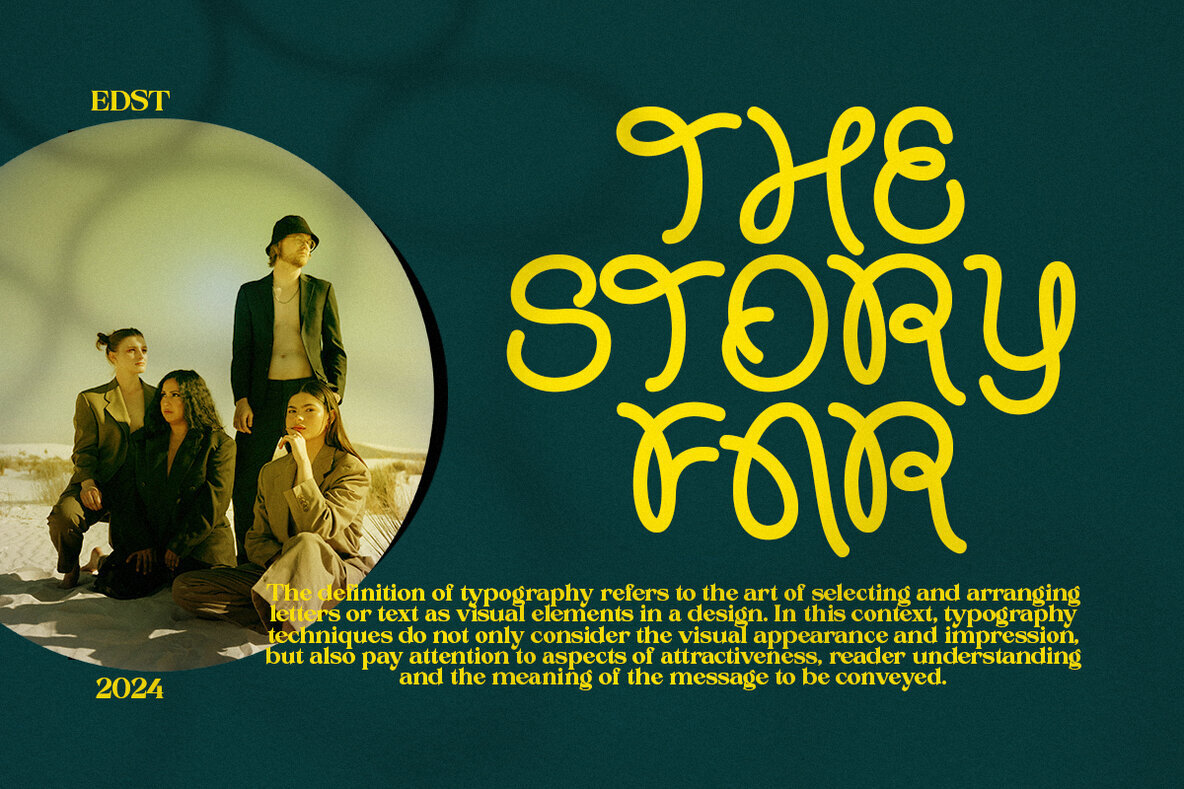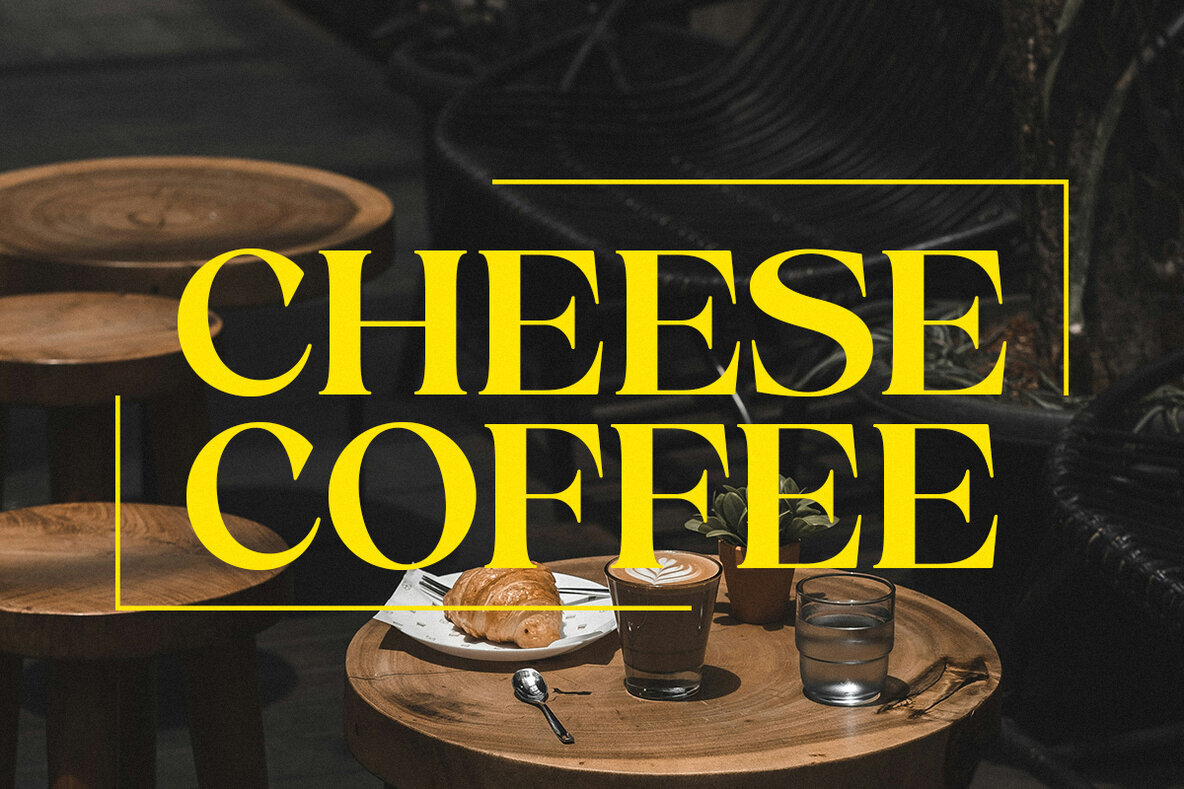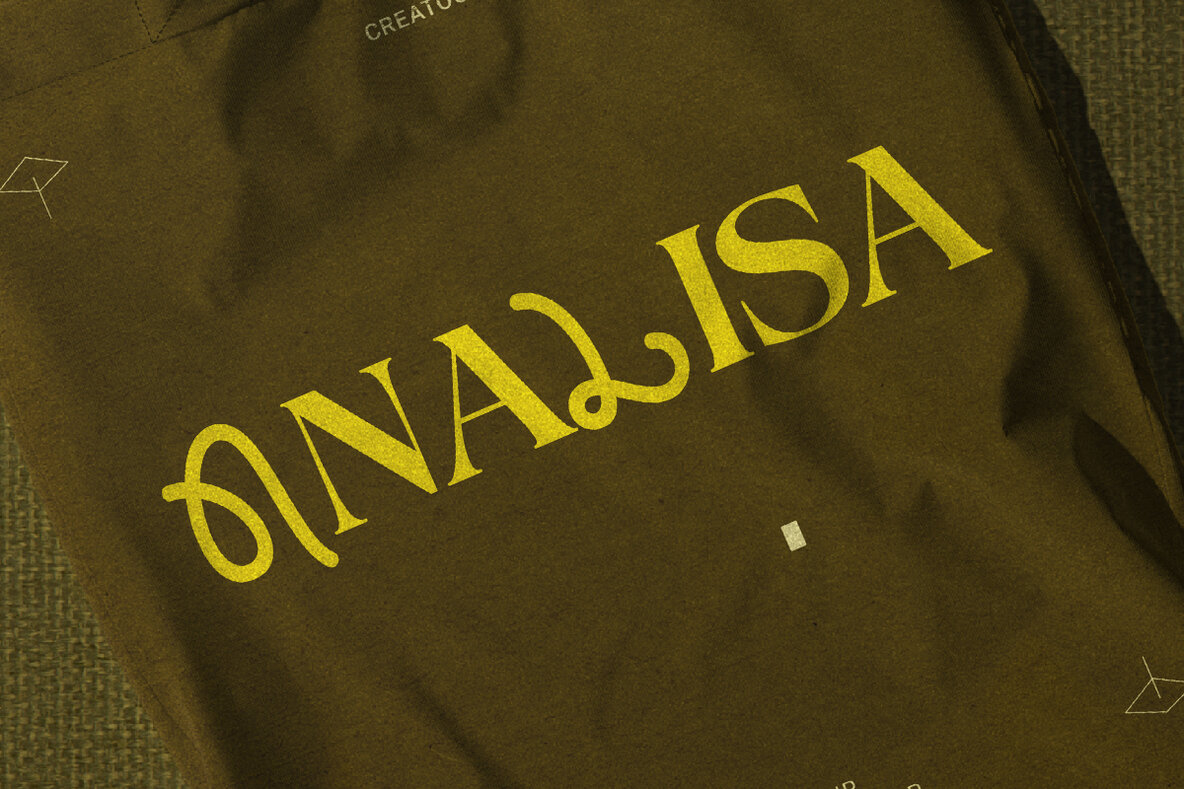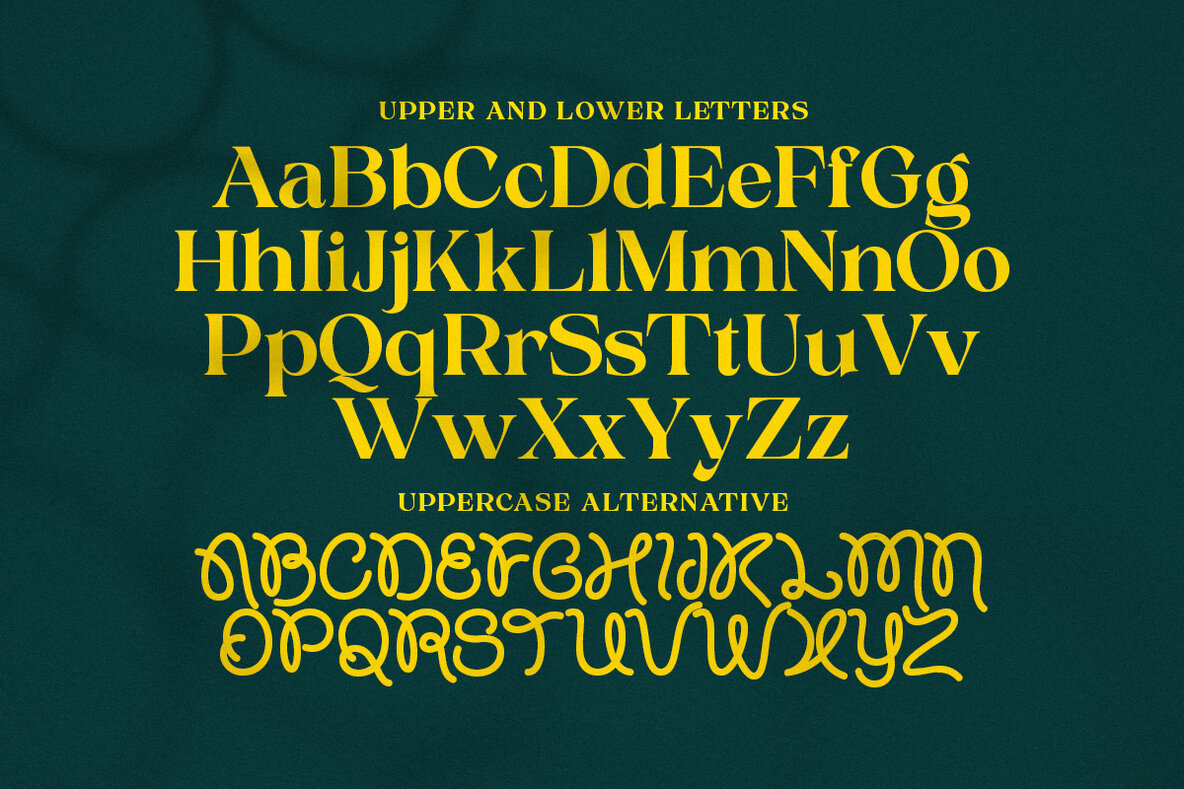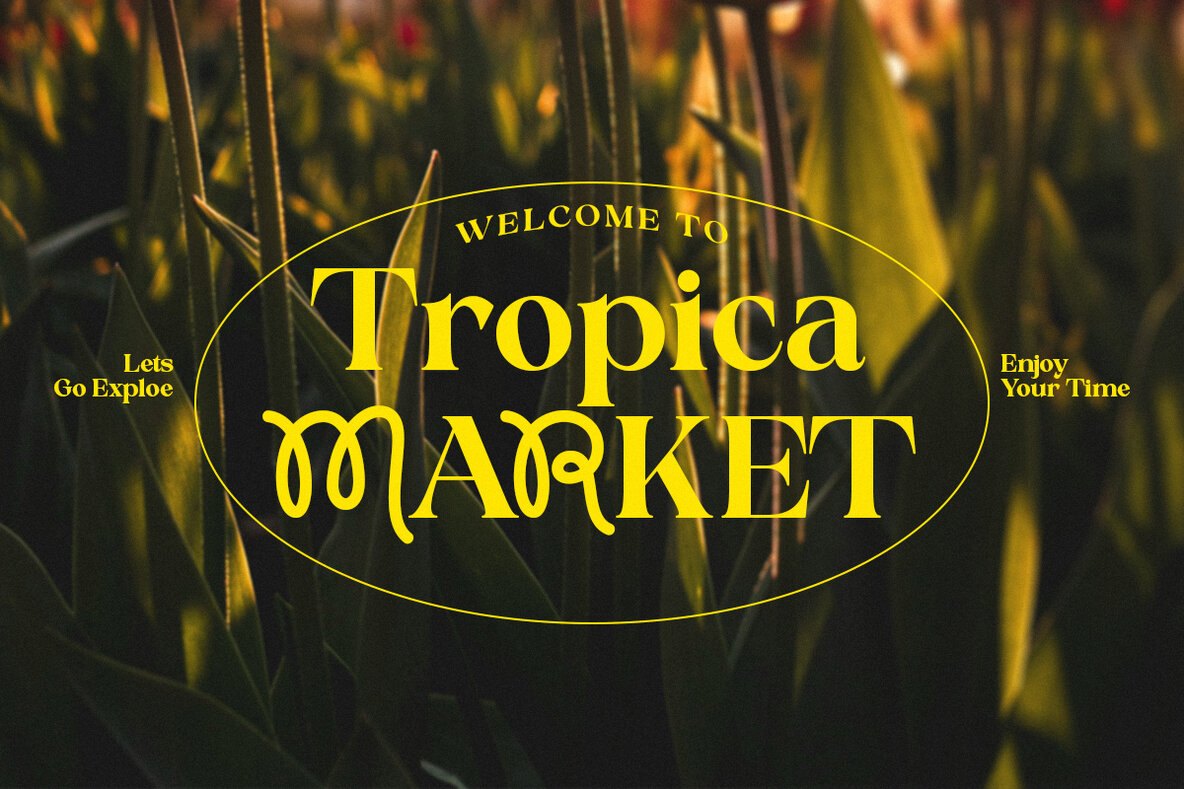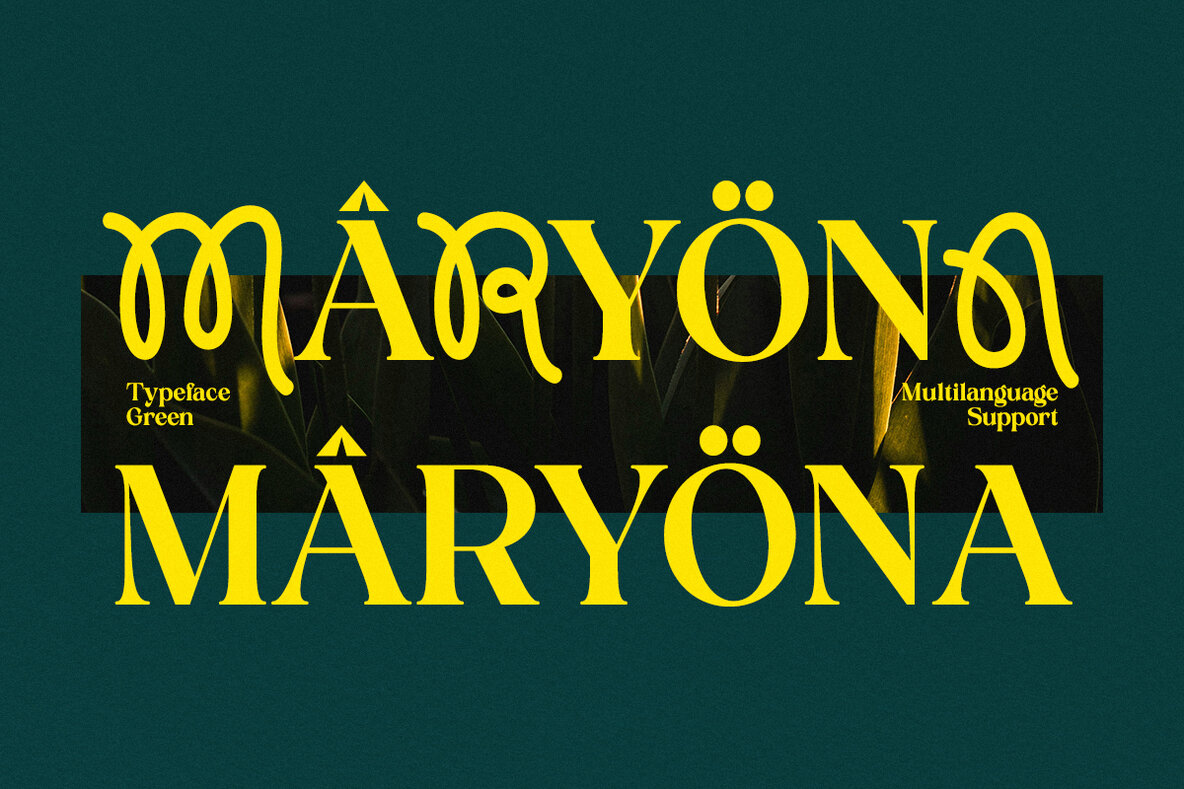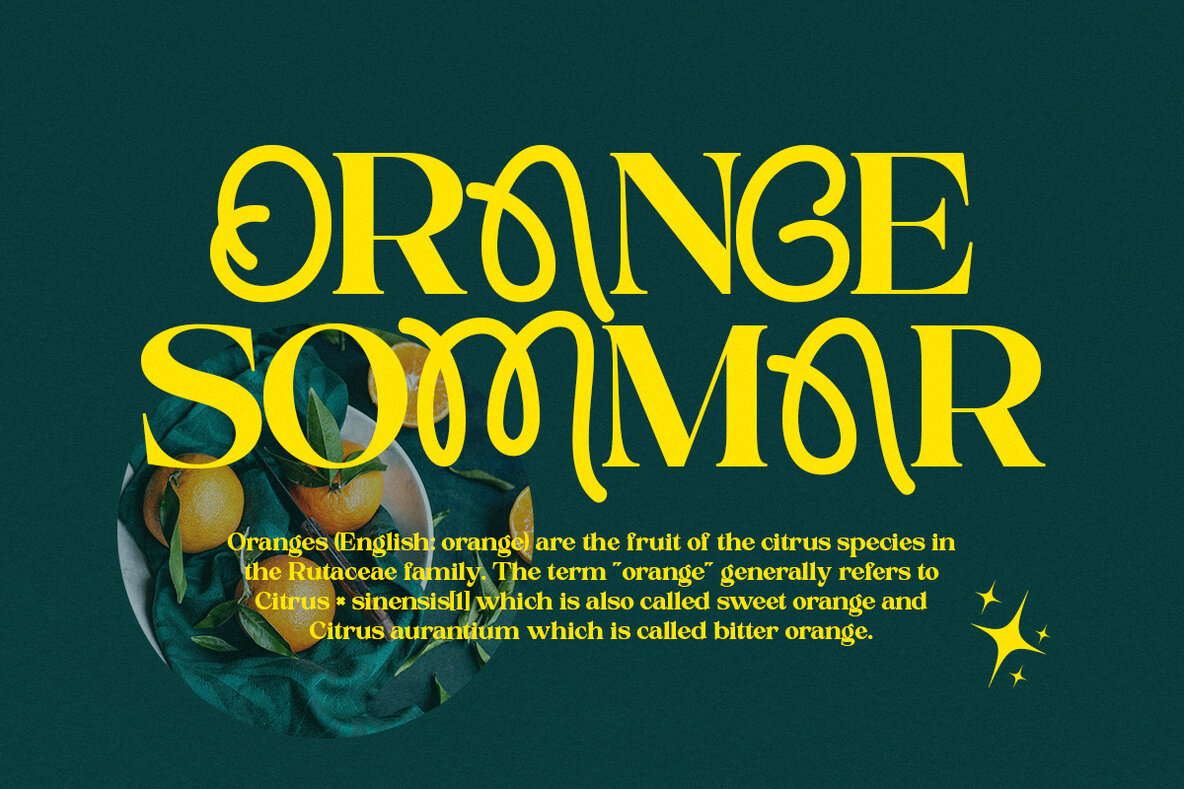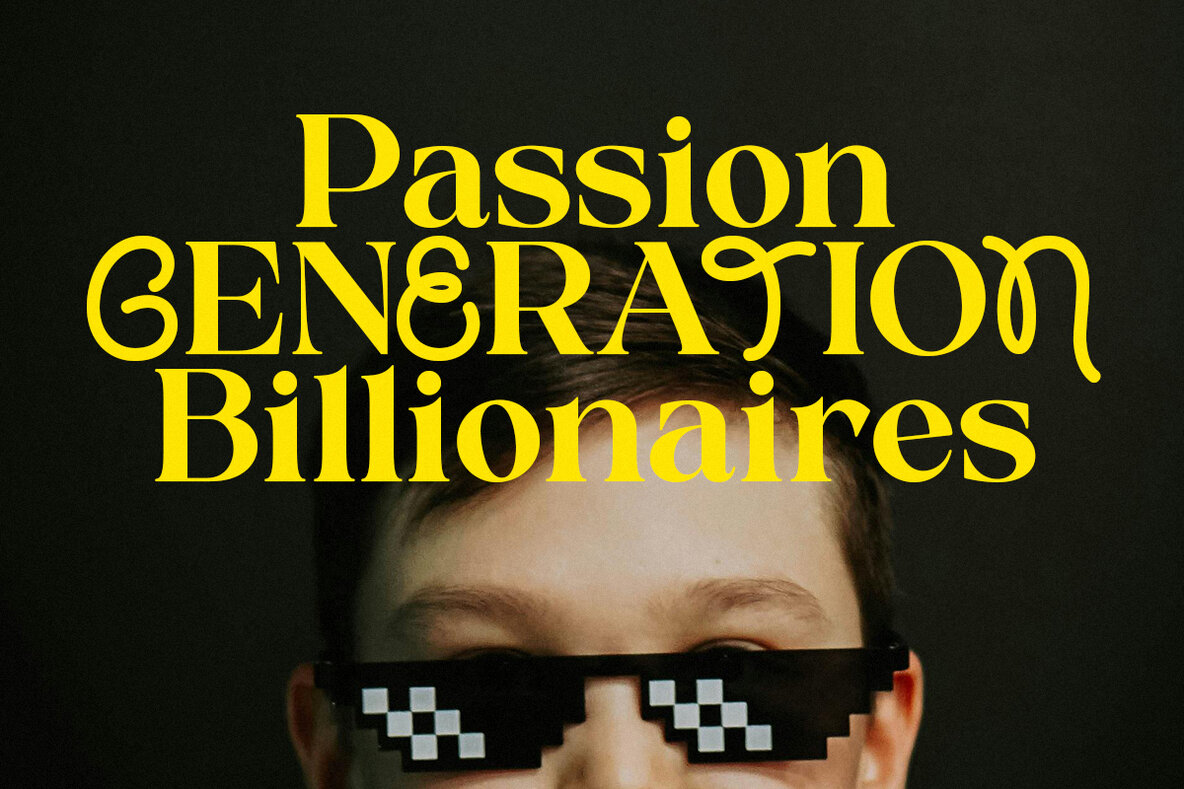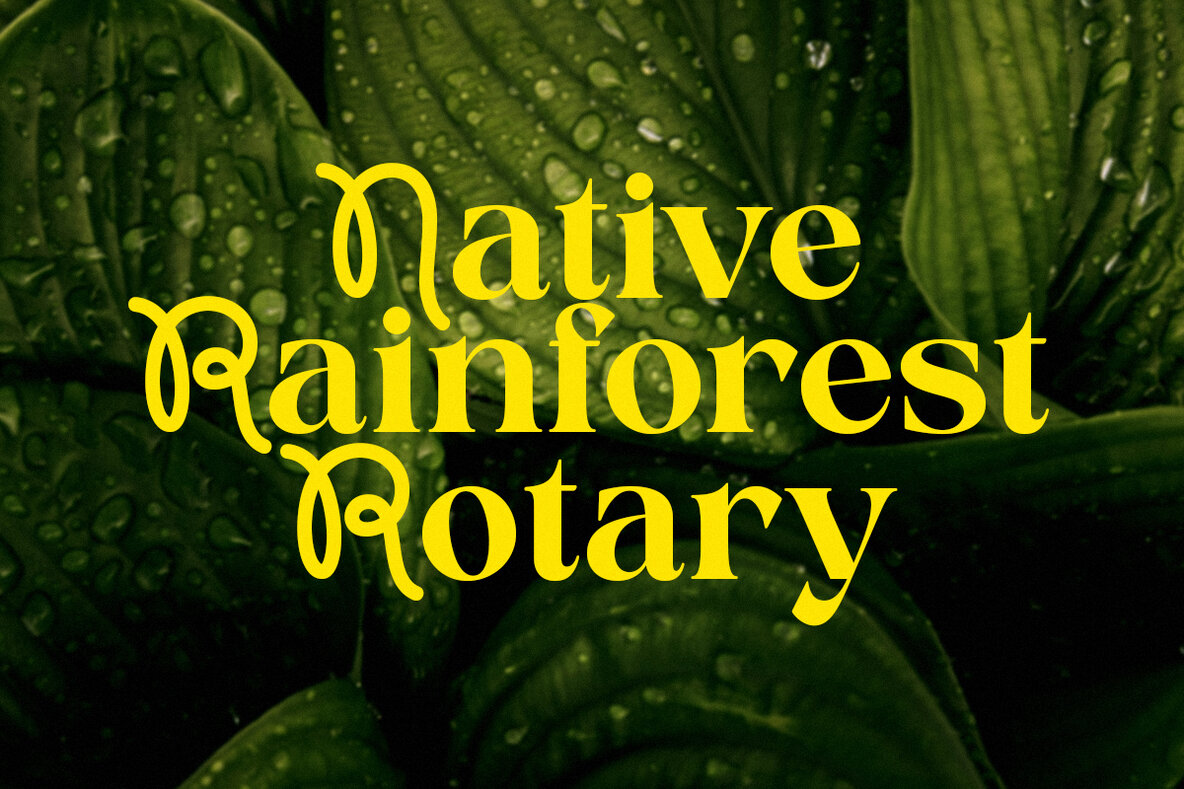
Proxina Font
Proxina Regular
Proxina offers a unique twist with its experimental design, combining two distinct font styles that together create a unique and striking appearance. This duality makes Proxina stand out, ideal for a wide range of creative projects. Equipped with alternative characters and multilingual support, Proxina simplifies the design process, making it suitable for various applications such as posters, logos, branding, social media graphics, books, and magazines. Proxina has been updated with new glyphs and style sets, enhancing its versatility and creative potential. If you have any questions or encounter any issues, feel free to reach out via email: •••. Thank you for choosing Proxina.Proxina: An Experimental Typeface Duo
Features and Versatility
Recent Update